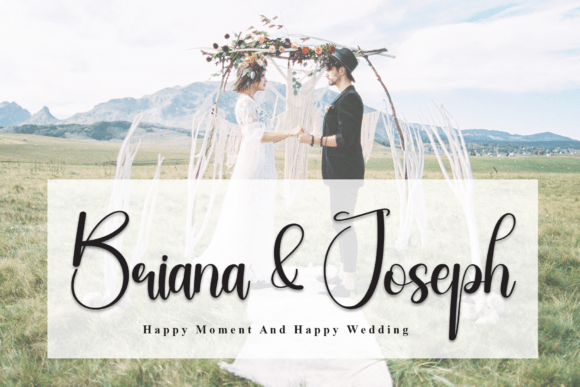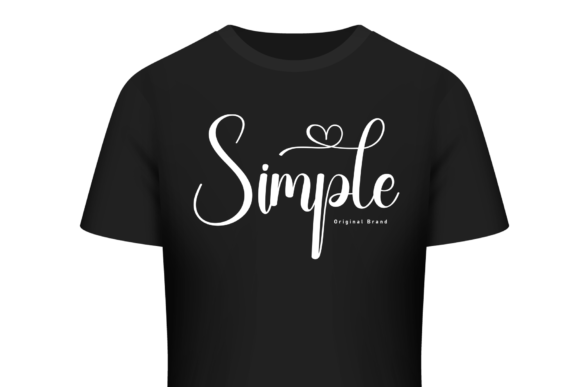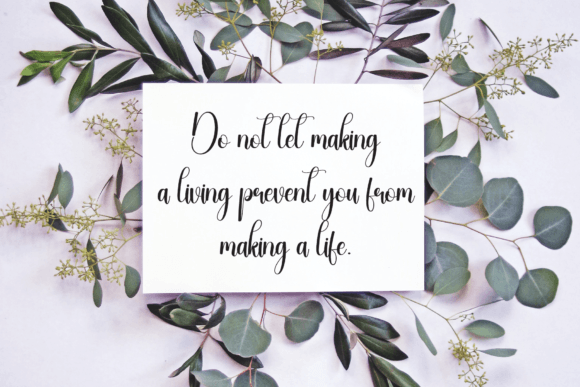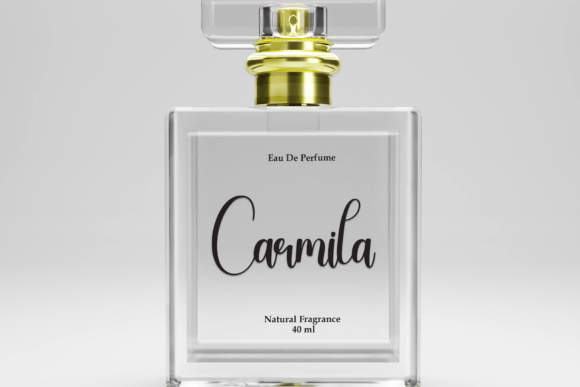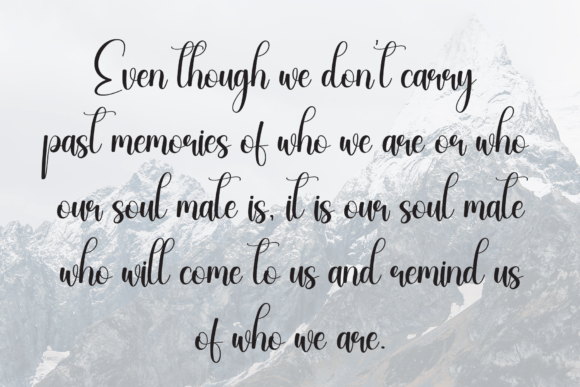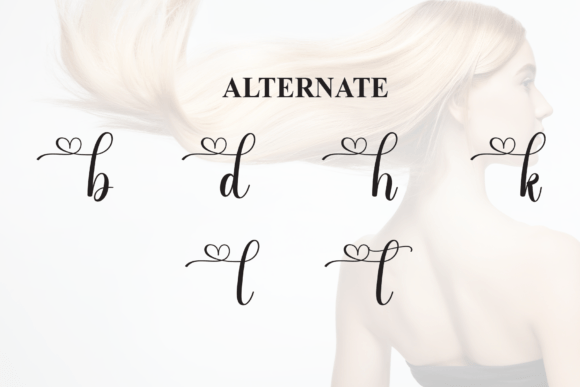
Introducing Blonde Font: Elevate Your Designs with Elegance and Sophistication
In the world of typography, few fonts manage to capture the essence of elegance and sophistication as beautifully as Blonde. This stunning script font is a game-changer for designers and crafters looking to add a touch of luxury and refinement to their projects. Whether you’re working on wedding invitations, thank you cards, quotes, greeting cards, logos, business cards, or any other design that requires a handwritten touch, Blonde is the perfect choice.
The Beauty of Blonde Font
Blonde is more than just a font – it’s an experience. Its stylish and incredibly elegant design makes it stand out from the crowd, adding a level of sophistication to any project. The fluid, cursive strokes of Blonde exude a sense of refinement and poise, making it ideal for designs that require a touch of luxury. From the swirling tails of the letters to the delicate connections between words, Blonde is a true masterpiece of typographic design.
Weddings and special events are all about elegance and romance, and Blonde font is the perfect fit for these occasions. Imagine adorning your wedding invitations, save-the-date cards, and thank you notes with this gorgeous script font. The result is a design that exudes sophistication and refinement, setting the tone for an unforgettable celebration. Whether you’re a designer or a crafty DIY bride, Blonde is sure to make your wedding stationery and event designs shine.
One of the best things about Blonde font is its versatility. While it’s perfect for wedding and event designs, it’s equally stunning in a variety of other applications. Use it to create beautiful quote designs, add a touch of elegance to your business cards, or craft eye-catching logos that make your brand stand out. The possibilities are endless, and Blonde’s flexibility makes it an excellent addition to any designer’s font library.
Why Designers and Crafters Love Blonde
So, what makes Blonde so popular among designers and crafters? For starters, its unique and elegant design sets it apart from more traditional fonts. Additionally, its versatility and wide range of applications make it a valuable asset for any creative project. Here are just a few reasons why Blonde has become a favorite among designers and crafters:
- Elegant and sophisticated design: Blonde adds a touch of luxury and refinement to any project.
- Versatile: Perfect for wedding and event designs, business cards, logos, quotes, and more.
- Handwritten touch: Adds a personal and human touch to your designs.
- Easy to read: Despite its elegant design, Blonde is surprisingly easy to read, making it perfect for body text and headlines.
Tips for Using Blonde Font
To get the most out of Blonde font, here are a few tips to keep in mind:
- Pair it with a simple font: Blonde is a statement font, so pair it with a simple, clean font to create visual balance.
- Experiment with colors: Blonde looks stunning in a variety of colors, from soft pastels to metallic gold and silver.
- Use it sparingly: While Blonde is beautiful, it can be overwhelming if used excessively. Use it sparingly to create emphasis and add a touch of elegance.
In conclusion, Blonde font is a stylish and incredibly elegant script font that’s perfect for designers and crafters looking to add a touch of luxury and sophistication to their projects. With its versatility, beauty, and ease of use, Blonde is sure to become a favorite in your font library. Whether you’re working on wedding invitations, business cards, or any other design that requires a handwritten touch, Blonde is the perfect choice. So why wait? Give Blonde a try today and elevate your designs to new heights of elegance and sophistication!